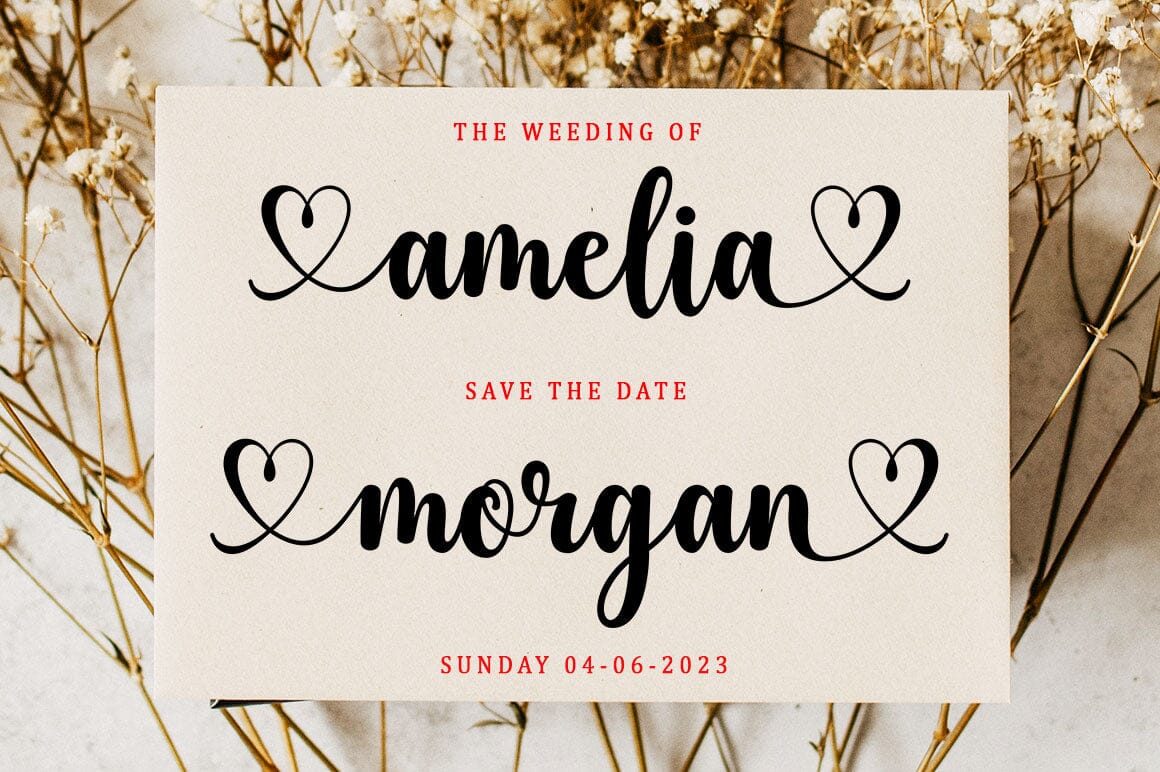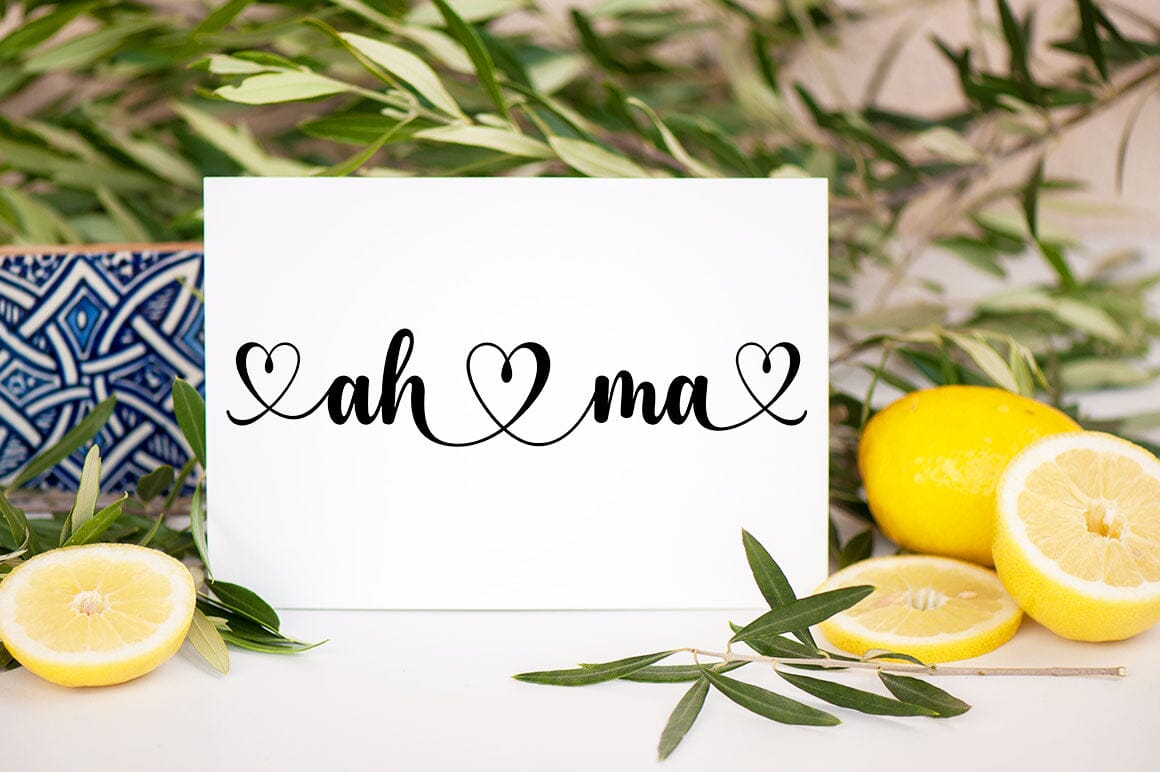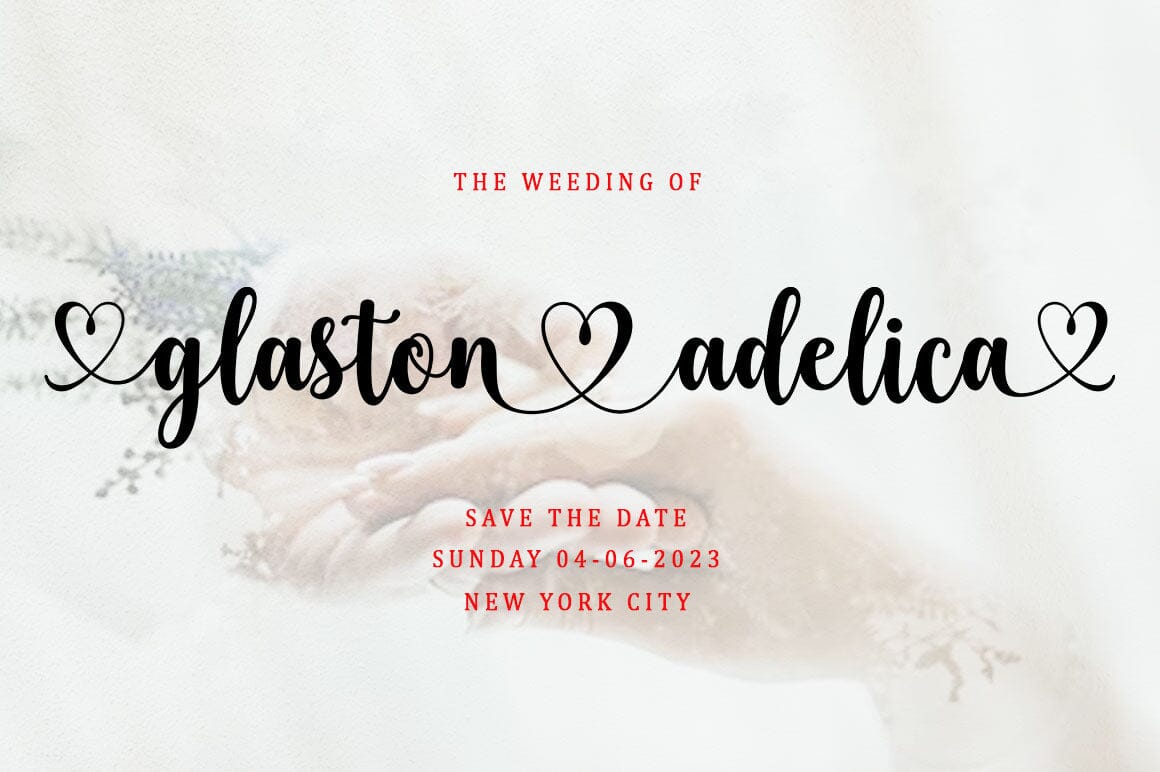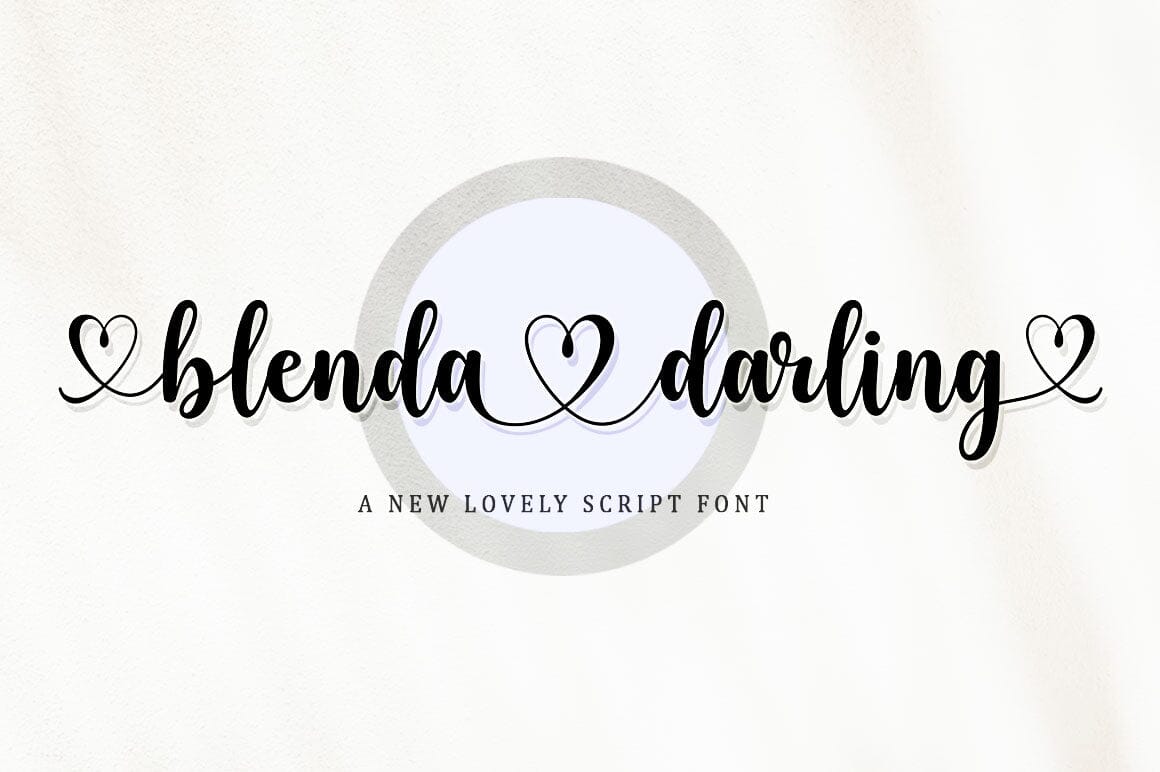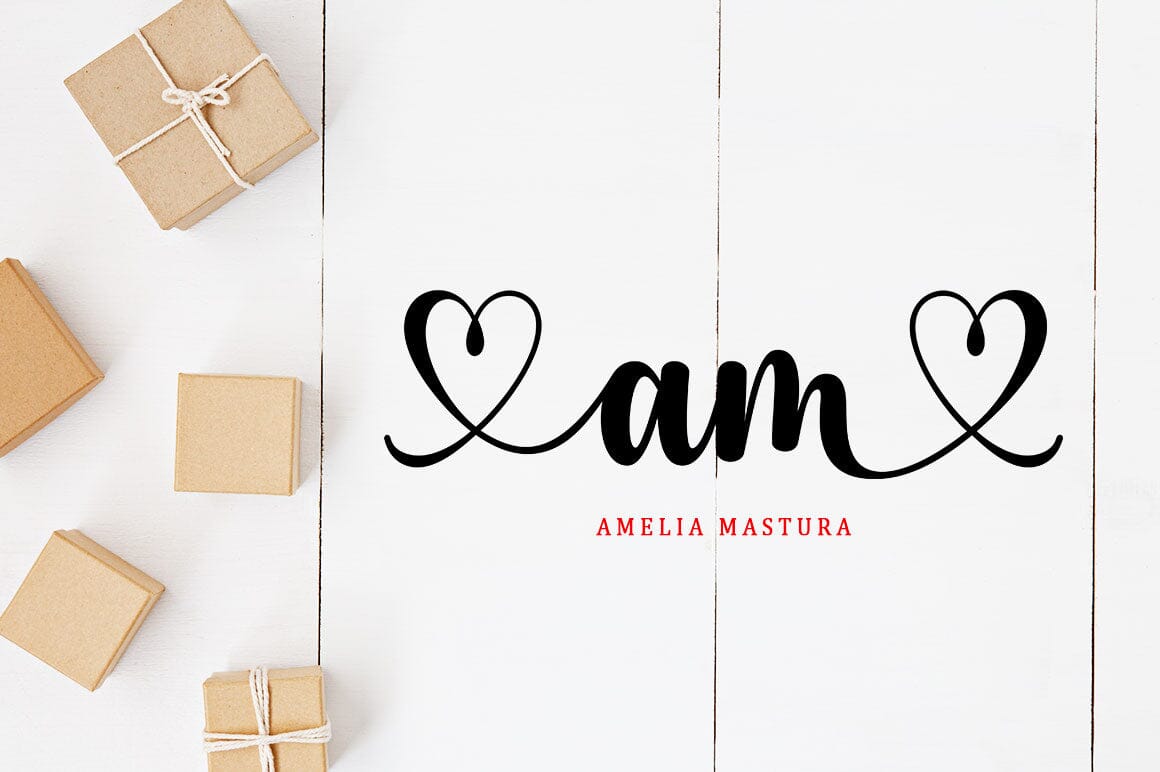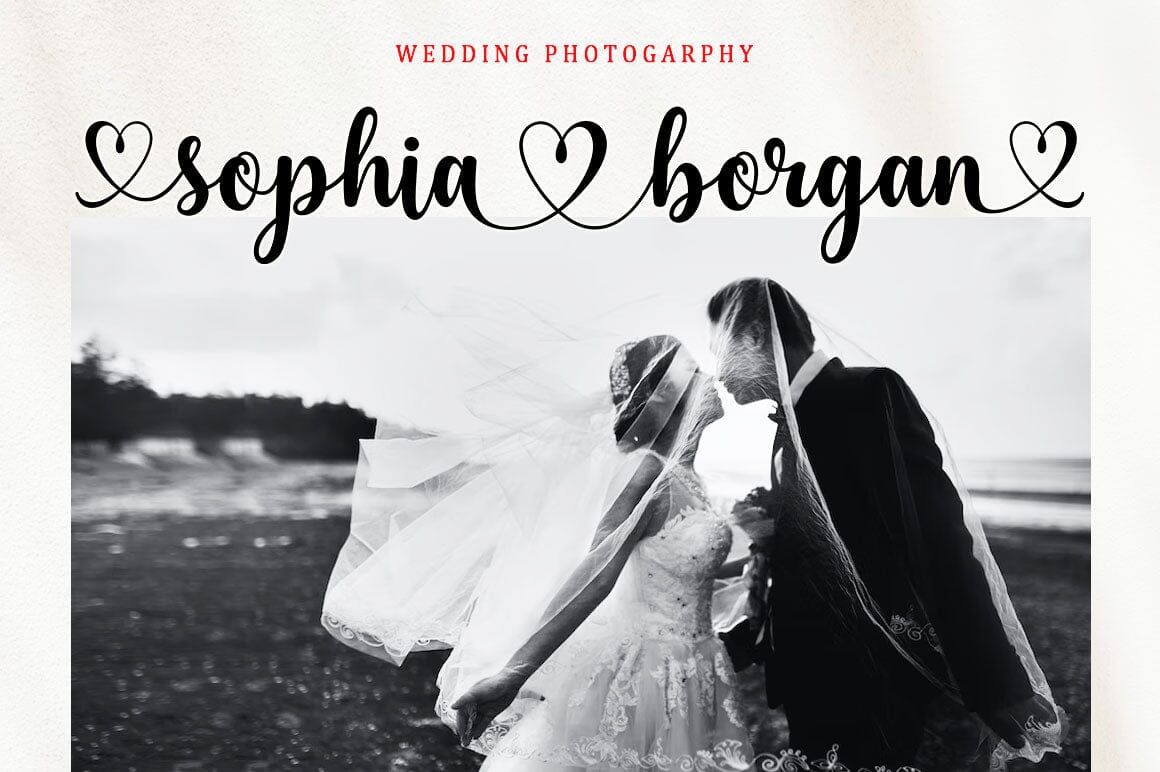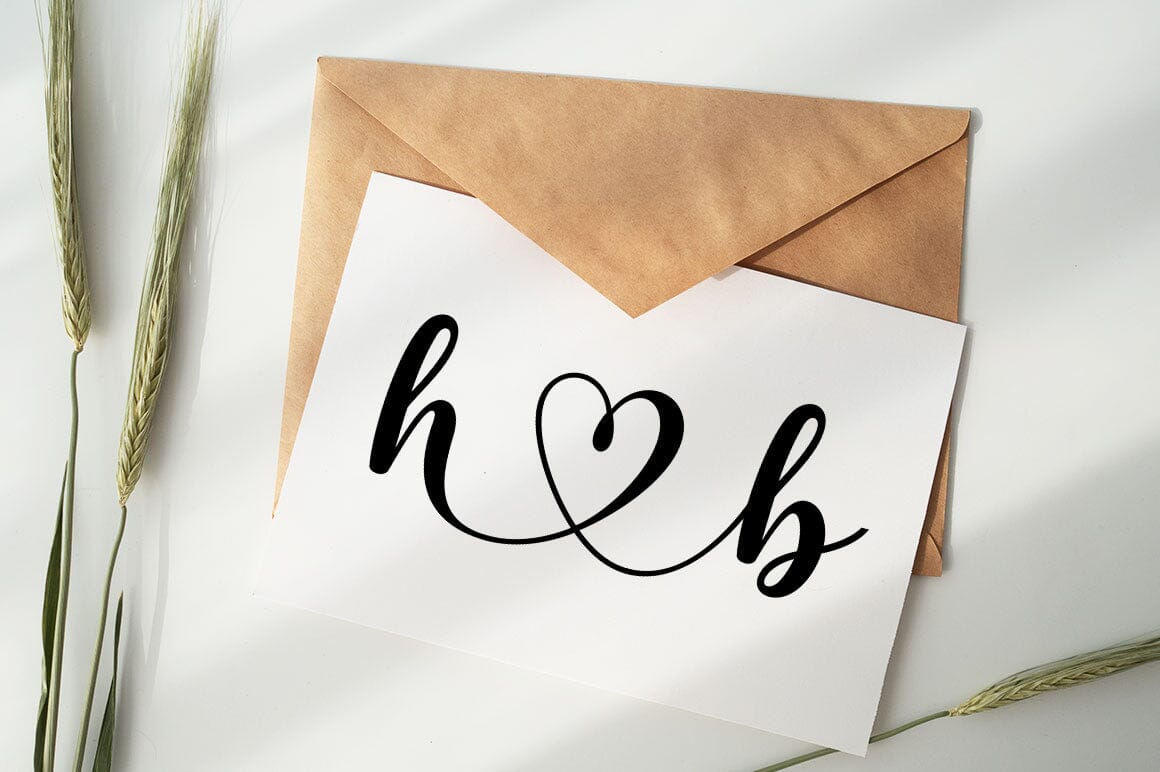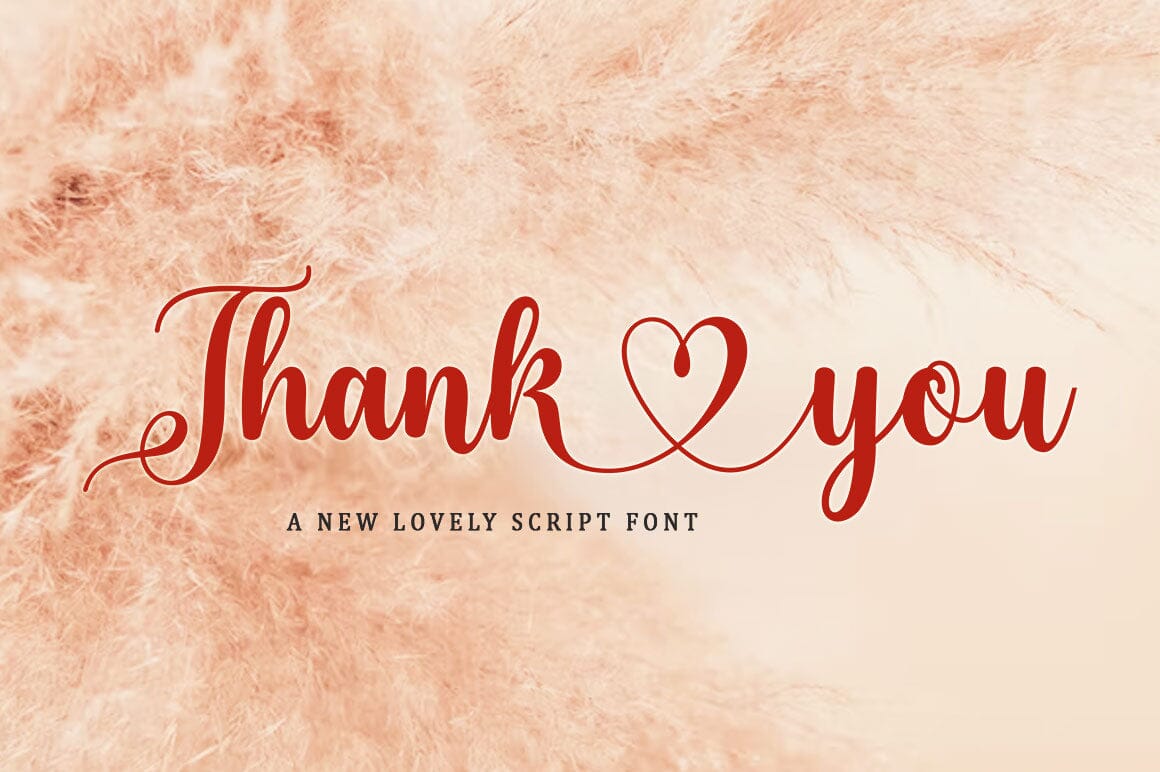
Blenda Darling Lovely Font
About Blenda Darling Lovely Font
Blenda Darling is a beautiful script that’s perfect for branding, wedding invitations, and other romantic projects. This love-centered look makes it perfect for use in all your design projects be it logos, labels, packaging designs, blog titles, posters, wedding designs, social media posts, Instagram designs, etc. You will get : OTF/TTF Contains full set: -Uppercase -Lowercase -Alternative -Ligature -Punctuation -Number -Multilingual support. I hope you enjoy this font. If you have any questions, feel free to message me.